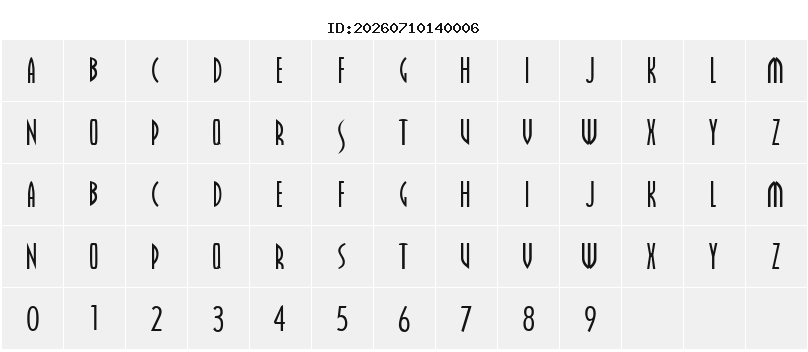
Farscape Preview
• Font Name: Farscape
• Full Font Name: Farscape 1
About Farscape.ttf
Farscape.ttf is a modern, elegant sans-serif font designed for ultimate readability and visual harmony. Perfect for branding, headlines, web design, and print materials.